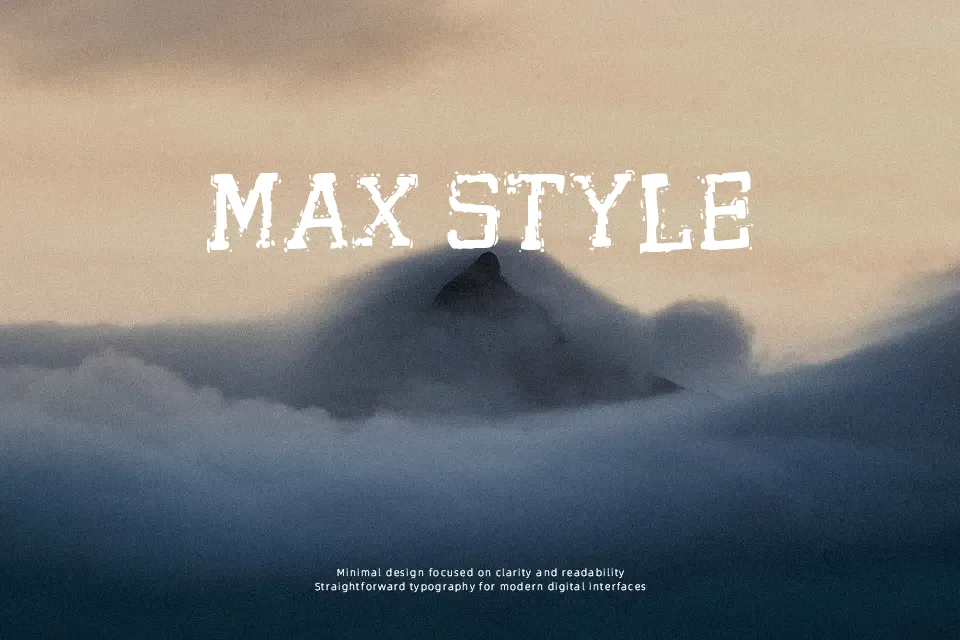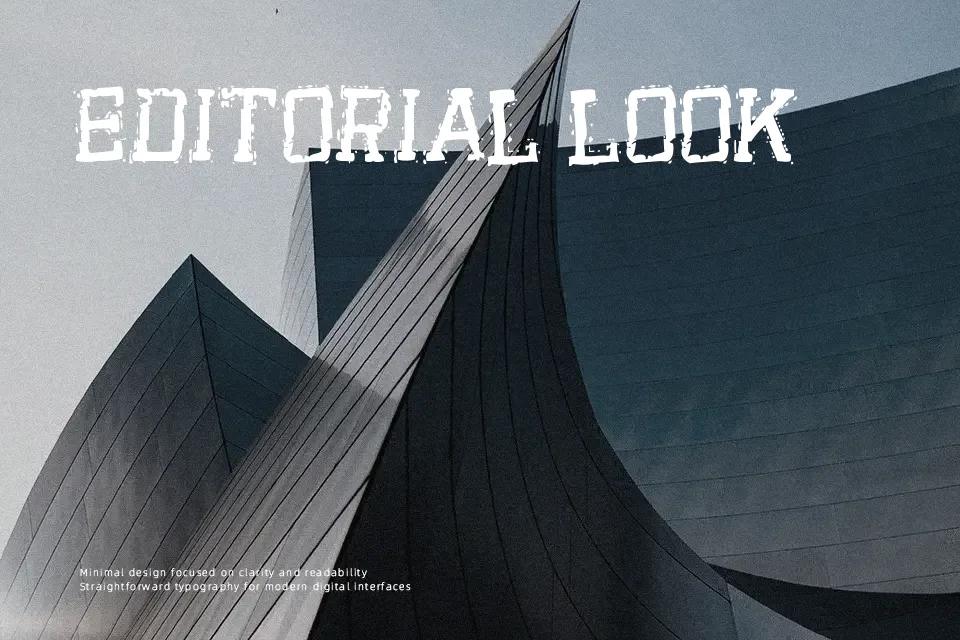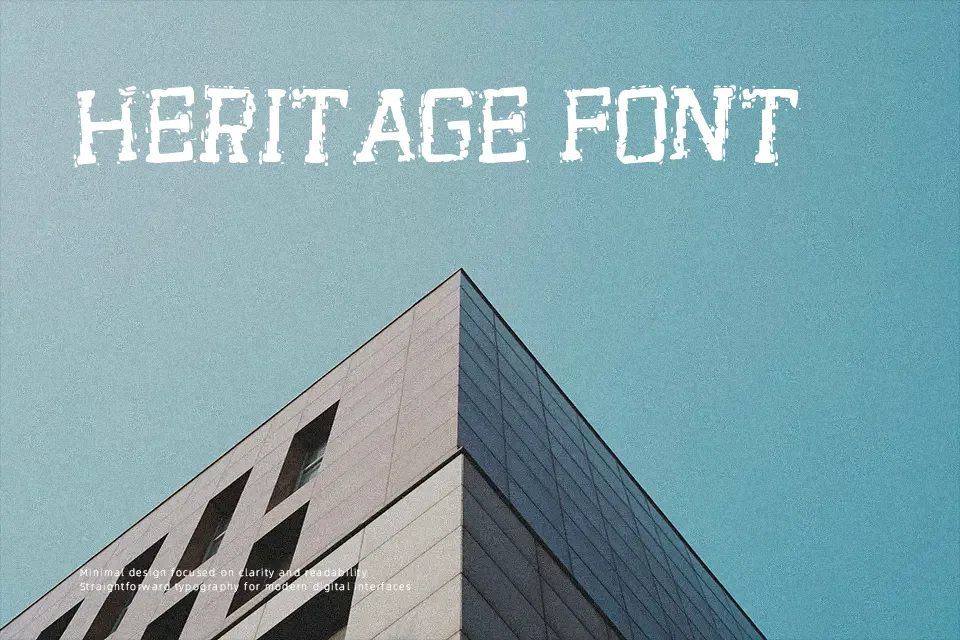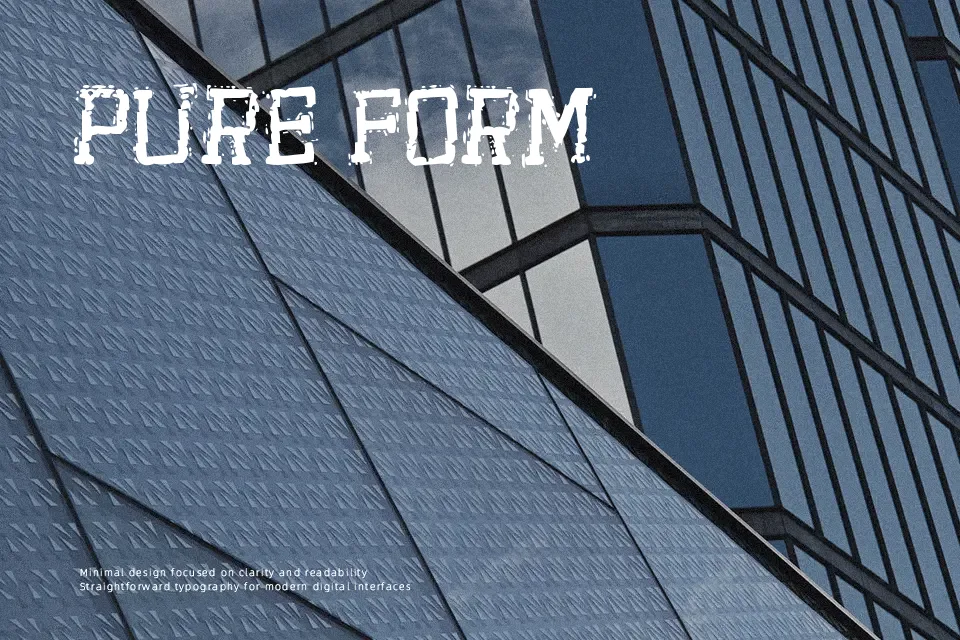
Rude College Font
A short product label or poster headline benefits from the intense, distressed texture of Rude College Font. The letterforms are constructed with heavy strokes and rigid proportions typical of classic varsity block typography. Each character is heavily eroded, featuring varied internal textures and roughened edges that deliver an aggressively weathered grunge aesthetic. Because of the bold weight and dense visual noise, the typeface commands attention at large display sizes but quickly loses clarity when scaled down. The tight spacing and complex distressing make it an excellent choice for vintage sports apparel or streetwear logos. However, these decorative details become illegible in long paragraphs, rendering the design unsuitable for continuous reading or small editorial layouts.
Best For: Vintage sports apparel, streetwear branding logos, grungy poster headlines, band merchandise graphics
Not Ideal For: Long paragraph text, small interface labels, dense editorial layouts
Perfect for fashion, headline, and logo, with a bold and decorative style.